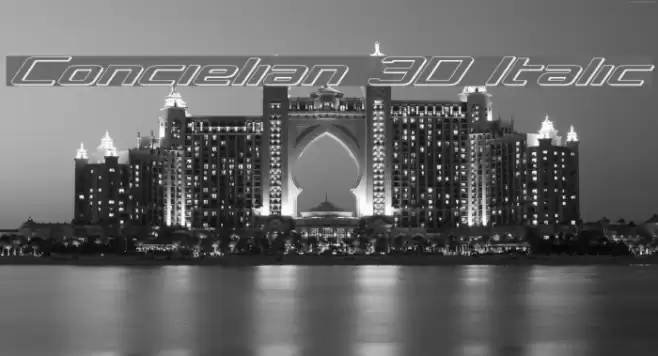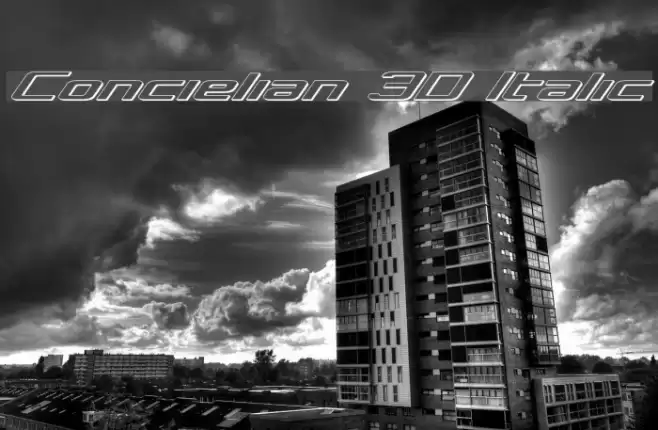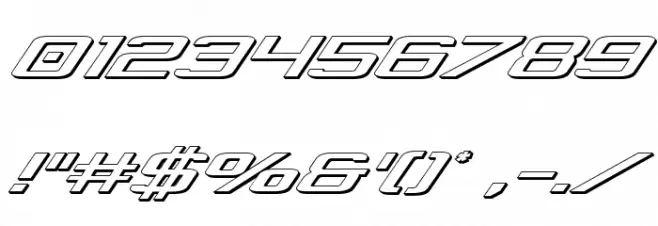
Concielian 3D Italic Font
Concielian 3D Italic Description
This font features a futuristic and dynamic design with a 3D effect that gives each character a sense of depth and movement. The italicized style adds a sleek and forward-leaning appearance, enhancing its modern aesthetic. The characters are outlined, creating a hollow effect that emphasizes the geometric structure of each letter. This font is ideal for projects that require a bold and eye-catching display, such as technology branding, sci-fi themed designs, or innovative product packaging. The uppercase and lowercase letters maintain consistent styling, ensuring readability while adding a unique flair.
A futuristic 3D italic font with outlined characters and a dynamic, modern style from Uncategorized fonts.
- Proposed Projects: Ideal for technology branding, sci-fi themed designs, innovative product packaging, and dynamic headlines.